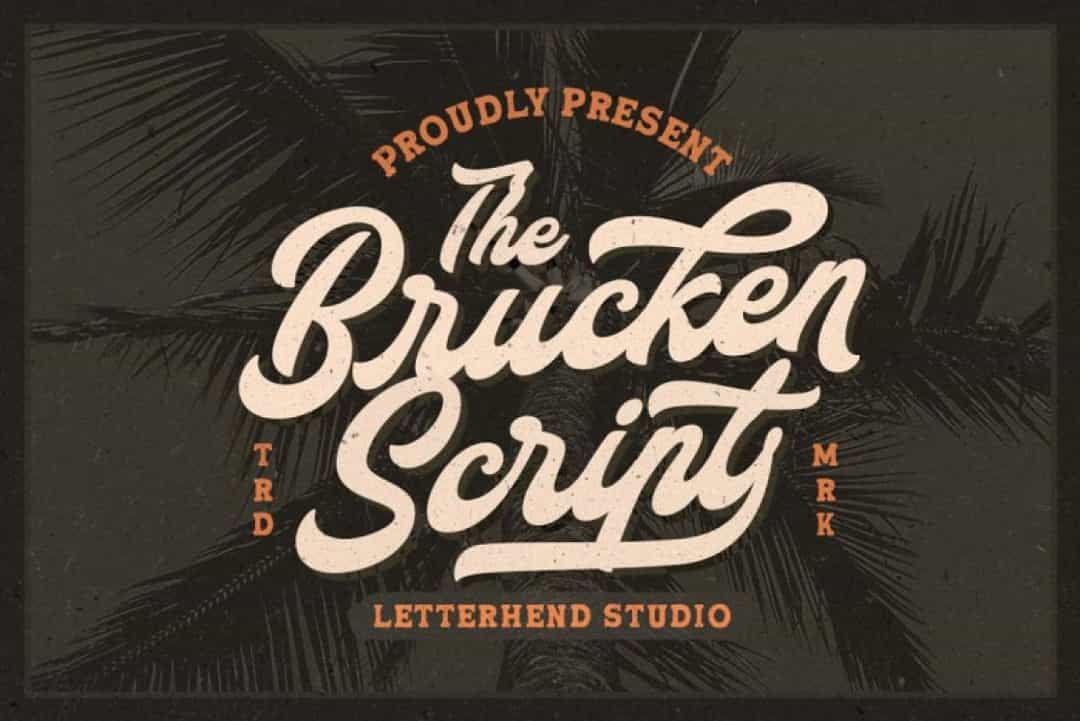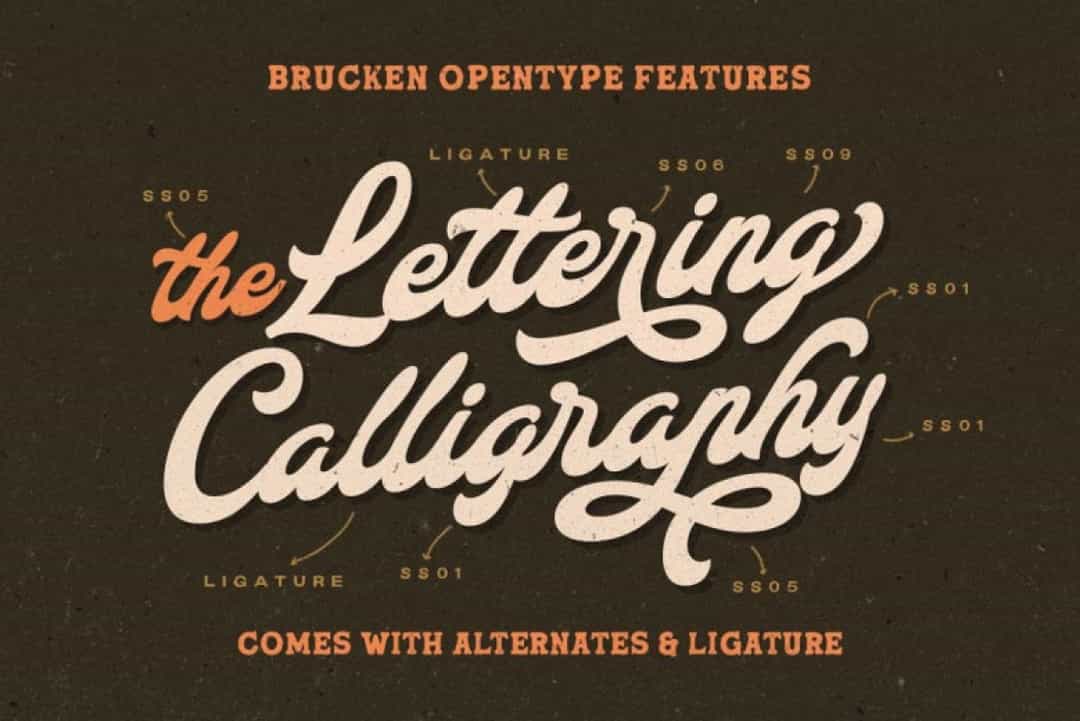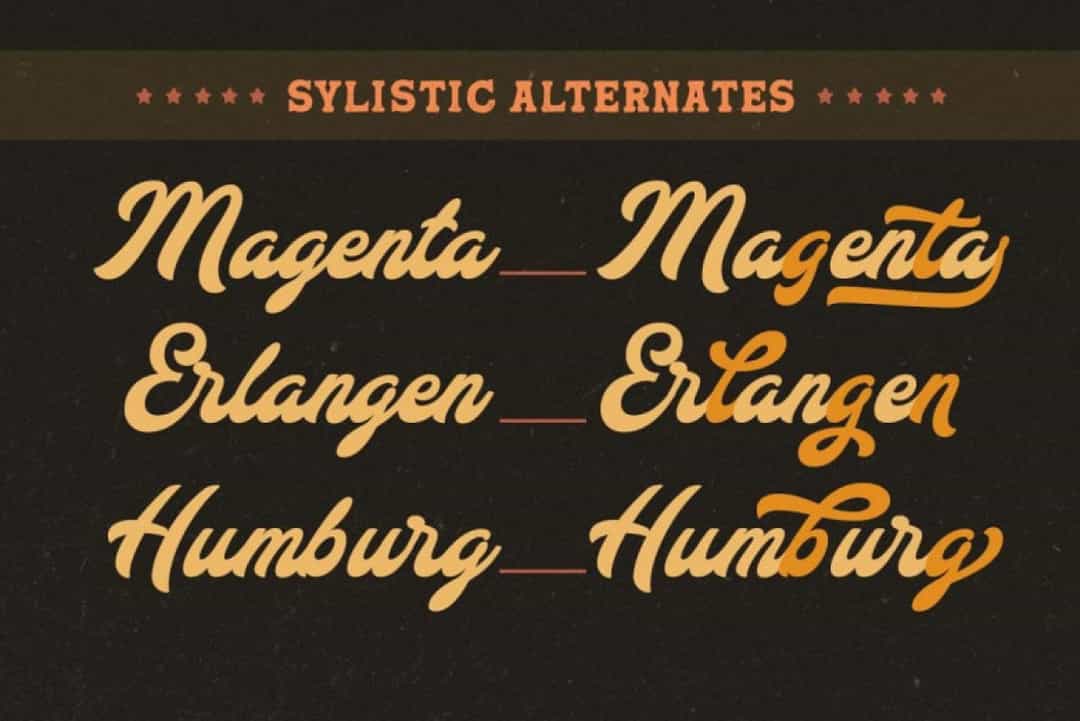
The Brucken is a bold and retro script font with an eye-catching swash that stands out in retro themed projects. Ideally suited to use on logos and formal formats like labels, invitations, books magazines and logos wedding and greeting cards packaging fashion makeup stationery books labels or any other commercial purposes this font stands out.